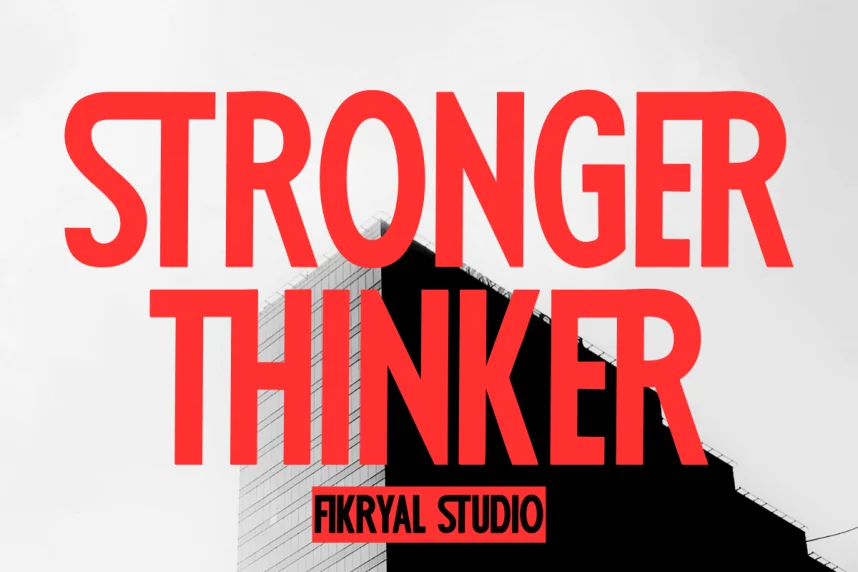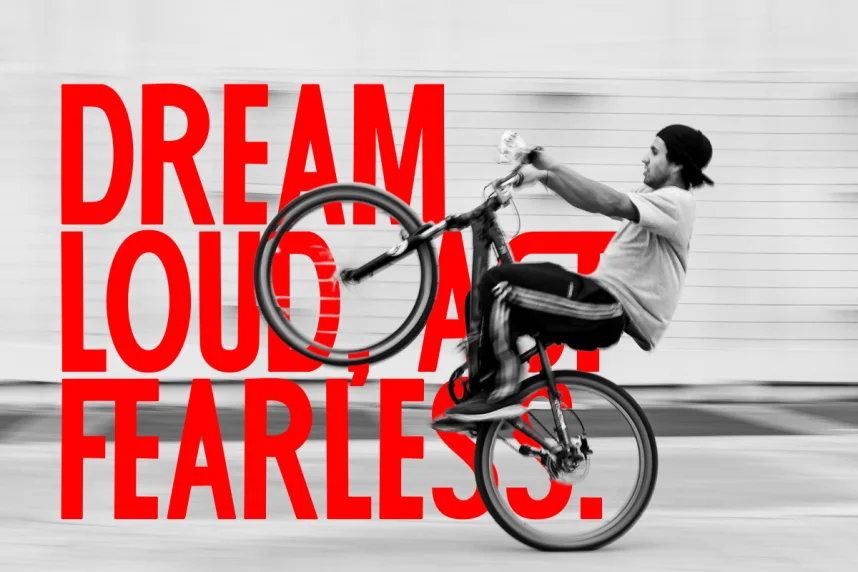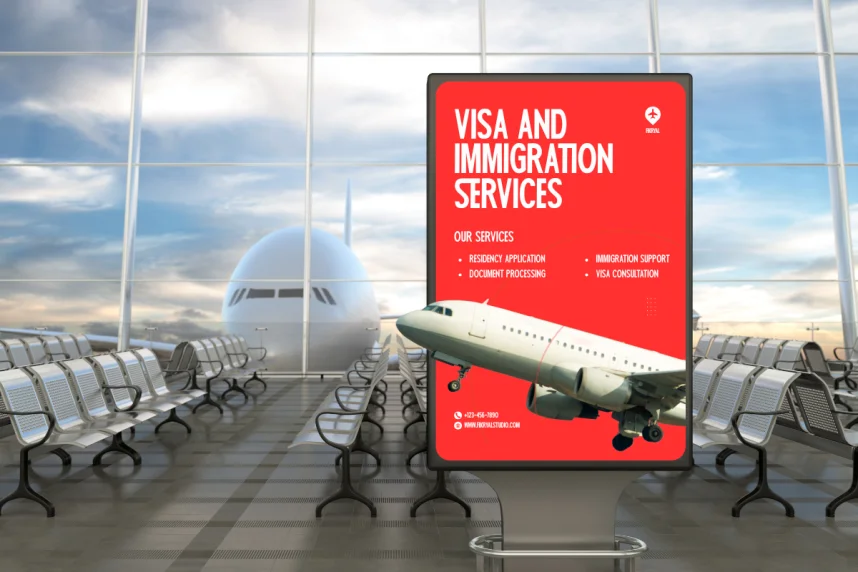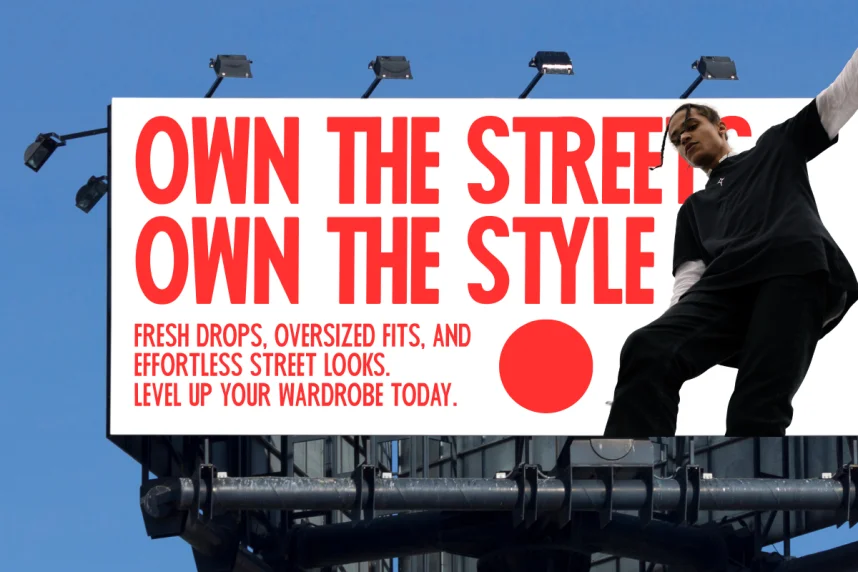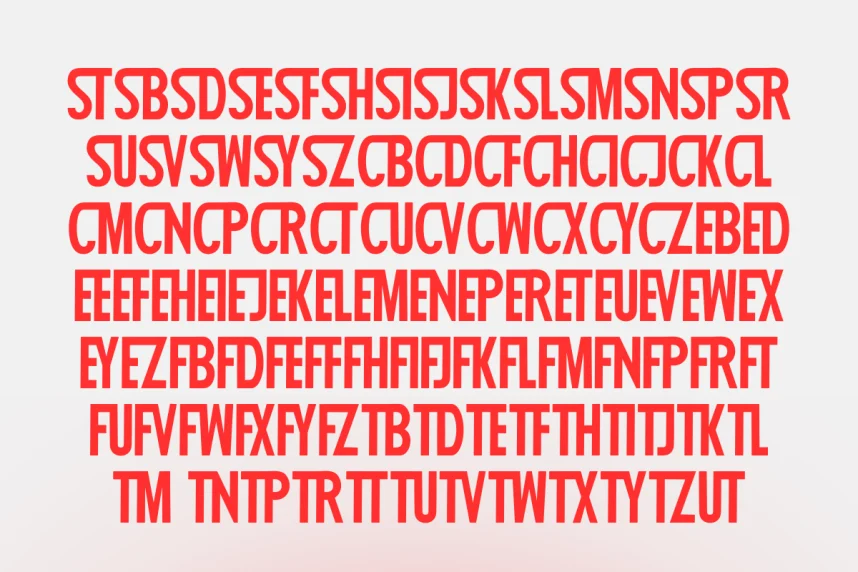
Stronger Thinker Font is a condensed display typeface designed to improve visual impact in branding, posters, and headline text. Designers often face spacing and clarity issues when fitting strong messaging into limited layout areas, especially for logos and promotional graphics.
Stronger Thinker features narrow letterforms, thick strokes, and built-in ligatures that connect characters smoothly. The condensed structure allows more characters per line without losing recognition. Ligatures add visual flow while keeping text compact and readable at larger sizes. The font supports uppercase characters, numerals, punctuation, and standard ligature sets.